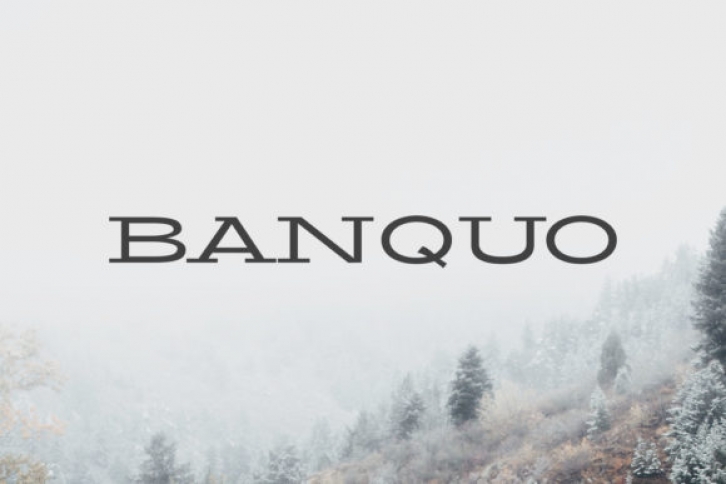
The Banquo is a stylish extended modern serif family. It comes in 4 weights and is perfect for headlines, logotypes, signage, advertising, magazine, logos, invitations, texts, posters, notices, titles, name cards, and much more!